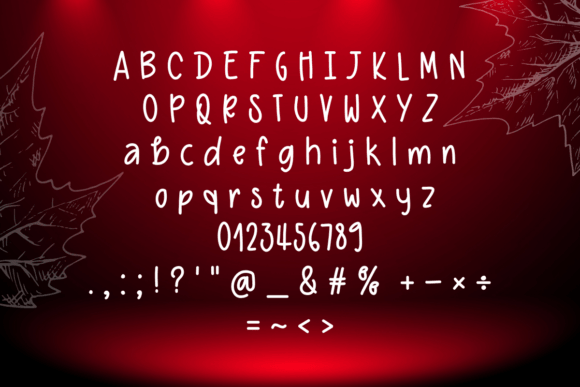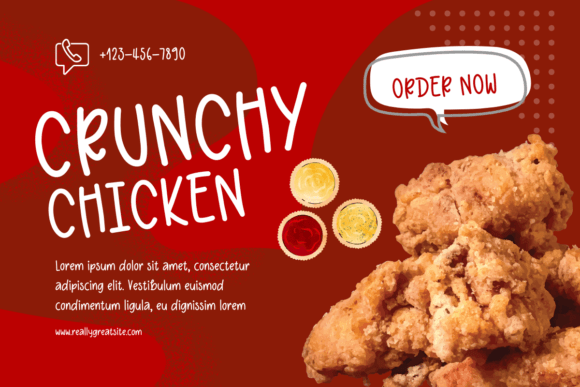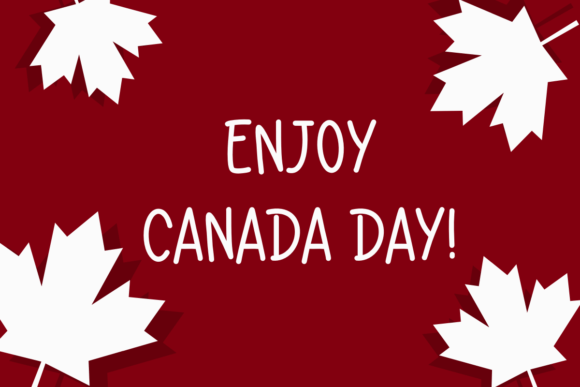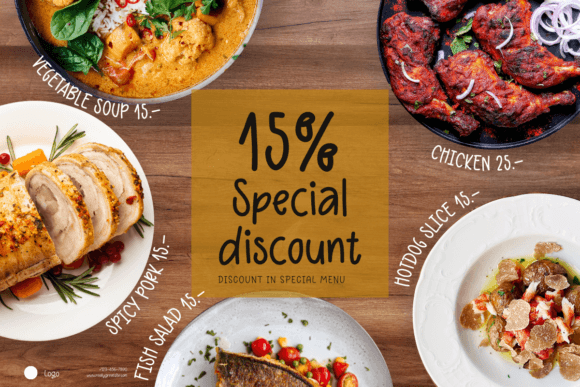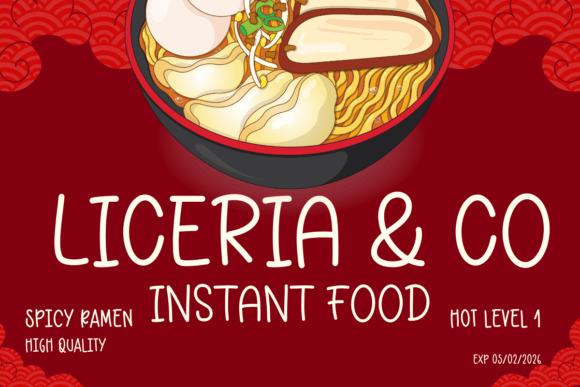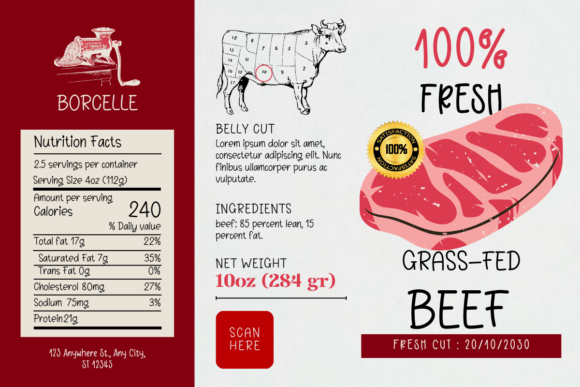
Introducing the Canada Day Font: A Handwritten Delight for Designers and Crafters
Are you looking for a unique and playful font to add a personal touch to your designs? Look no further than the Canada Day Font! This charming handwritten font is perfect for a variety of creative projects, from taking notes and writing diaries to creating greeting cards and social media posts. In this article, we’ll explore the features and uses of the Canada Day Font, and why it’s a must-have for designers and crafters.
What is the Canada Day Font?
The Canada Day Font is a handwritten font designed to capture the spirit of Canada’s national holiday. With its playful and cursive script, this font is perfect for adding a touch of personality to your designs. Whether you’re creating a birthday card, a blog post, or a social media graphic, the Canada Day Font is sure to make your content stand out.
Uses for the Canada Day Font
One of the best things about the Canada Day Font is its versatility. Here are just a few ideas for how you can use this font in your designs:
- Note-taking and journaling: Add a personal touch to your notes and journal entries with the Canada Day Font. This font is perfect for writing down your thoughts, ideas, and inspiration.
- Greeting cards and invitations: Create beautiful and unique greeting cards and invitations with the Canada Day Font. This font is perfect for birthdays, holidays, and special occasions.
- Banners and signs: Use the Canada Day Font to create eye-catching banners and signs for parties, events, and promotions.
- Social media posts: Add a touch of personality to your social media posts with the Canada Day Font. This font is perfect for creating engaging and shareable content.
- Mugs, cards, and stationery: Create custom mugs, cards, and stationery with the Canada Day Font. This font is perfect for adding a personal touch to your gifts and correspondence.
- T-shirts and apparel: Use the Canada Day Font to create custom t-shirts and apparel for special occasions or events.
Why Choose the Canada Day Font?
So why choose the Canada Day Font for your designs? Here are just a few reasons:
- Unique and playful: The Canada Day Font is a one-of-a-kind font that adds a touch of personality to your designs.
- Easy to read: Despite its playful script, the Canada Day Font is easy to read and understand, making it perfect for a variety of uses.
- Versatile: The Canada Day Font can be used for a wide range of designs, from notes and journals to social media posts and banners.
- High-quality: The Canada Day Font is a high-quality font that is designed to produce crisp and clear results.
Tips for Using the Canada Day Font
Here are a few tips for getting the most out of the Canada Day Font:
- Experiment with colors: The Canada Day Font looks great in a variety of colors, so don’t be afraid to experiment and find the perfect hue for your design.
- Mix and match: Combine the Canada Day Font with other fonts and graphics to create unique and eye-catching designs.
- Keep it simple: Don’t overcomplicate your design – the Canada Day Font is perfect for simple and elegant designs.